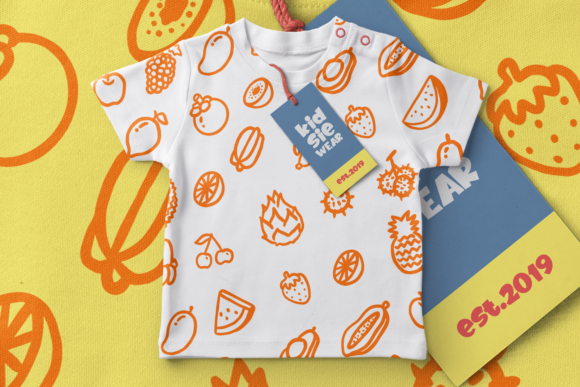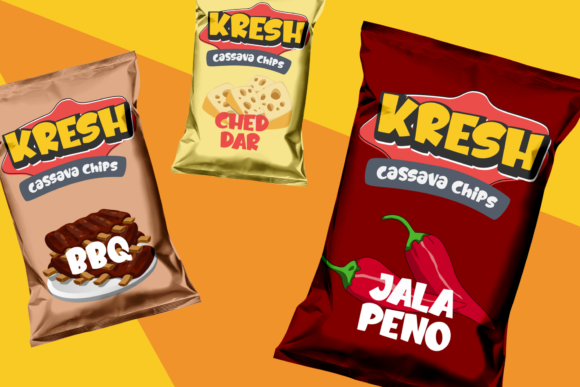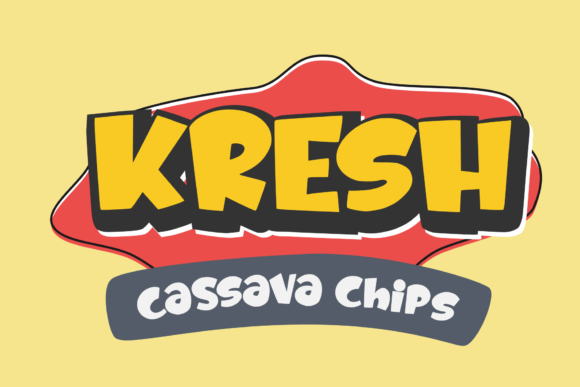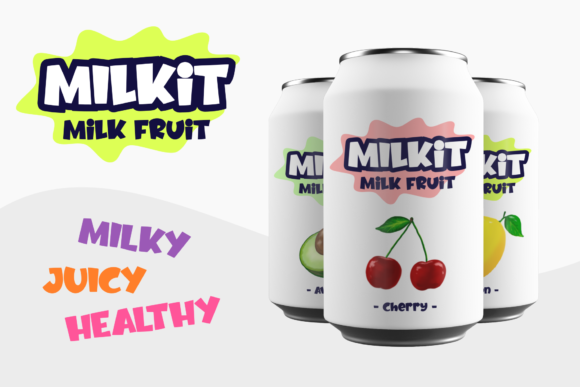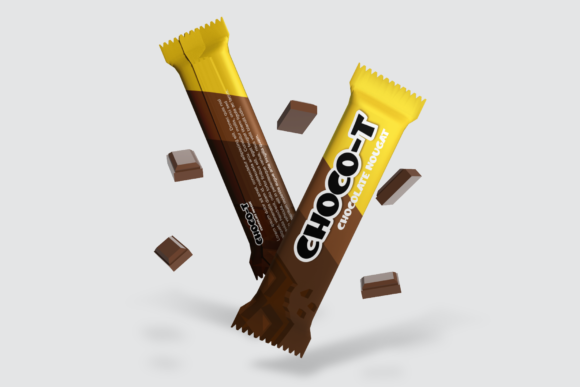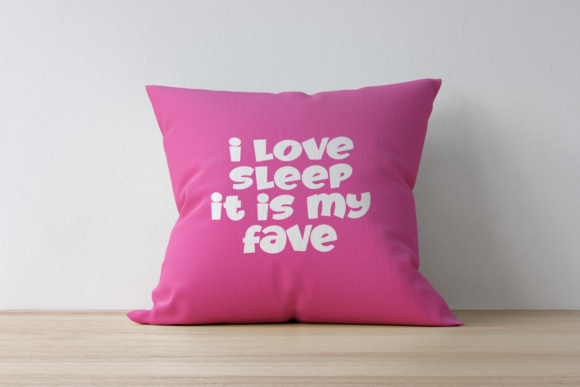
Fruitz Font: Unleash the Juicy and Bold Display Font with a Unique Style
Are you tired of using the same old fonts in your designs? Look no further! Fruitz Font is here to add a burst of flavor to your creative projects. This juicy and bold display font is sure to turn heads with its unique style. In this article, we’ll dive into the world of Fruitz Font and explore its features, benefits, and uses.
The Flavor of Fruitz Font
Fruitz Font is a bold and vibrant display font that is inspired by the freshness of fruits. Its unique style is characterized by bold lines, curvaceous shapes, and a playful vibe. The font is designed to evoke the feeling of biting into a juicy fruit, with its smooth and rounded edges. Whether you’re designing a logo, a poster, or a social media graphic, Fruitz Font is sure to add a pop of color and energy to your design.
Features of Fruitz Font
So, what makes Fruitz Font so special? Here are some of its key features:
• Bold and Juicy Style: Fruitz Font is a bold and eye-catching font that is perfect for making a statement.
• Unique and Playful Design: The font’s curvaceous shapes and smooth edges give it a playful and fun vibe.
• High-Quality Vector Graphics: Fruitz Font is designed with high-quality vector graphics, making it perfect for large-scale designs.
• Easily Customizable: The font is easily customizable, allowing you to adjust the size, color, and style to fit your design needs.
Benefits of Using Fruitz Font
So, why should you use Fruitz Font in your designs? Here are some benefits:
• Adds Visual Interest: Fruitz Font adds a burst of color and energy to your designs, making them more visually appealing.
• Perfect for Headlines and Titles: The font’s bold style makes it perfect for headlines and titles, adding emphasis and drawing attention.
• Great for Branding and Advertising: Fruitz Font is perfect for branding and advertising, adding a playful and fun vibe to your campaigns.
• Easy to Read: Despite its bold style, Fruitz Font is easy to read, making it perfect for body text and descriptions.
Uses of Fruitz Font
So, what can you use Fruitz Font for? Here are some ideas:
• Logos and Branding: Use Fruitz Font to create a bold and eye-catching logo that stands out.
• Posters and Flyers: Add a pop of color and energy to your posters and flyers with Fruitz Font.
• Social Media Graphics: Use Fruitz Font to create engaging and shareable social media graphics.
• Packaging and Labels: Add a playful and fun vibe to your packaging and labels with Fruitz Font.
Tips for Using Fruitz Font
Here are some tips for using Fruitz Font effectively:
• Use it Sparingly: Fruitz Font is bold and eye-catching, so use it sparingly to avoid overwhelming your design.
• Pair it with Other Fonts: Pair Fruitz Font with other fonts to create contrast and add visual interest.
• Experiment with Colors: Experiment with different colors to find the perfect combination that works with your design.
• Have Fun: Most importantly, have fun with Fruitz Font! Its playful and fun vibe is perfect for adding a creative touch to your designs.
In conclusion, Fruitz Font is a juicy and bold display font with a unique style that’s perfect for designers and crafters. Its bold flavor is sure to add a burst of energy and creativity to your designs. With its high-quality vector graphics, easily customizable design, and playful vibe, Fruitz Font is the perfect addition to your font collection.